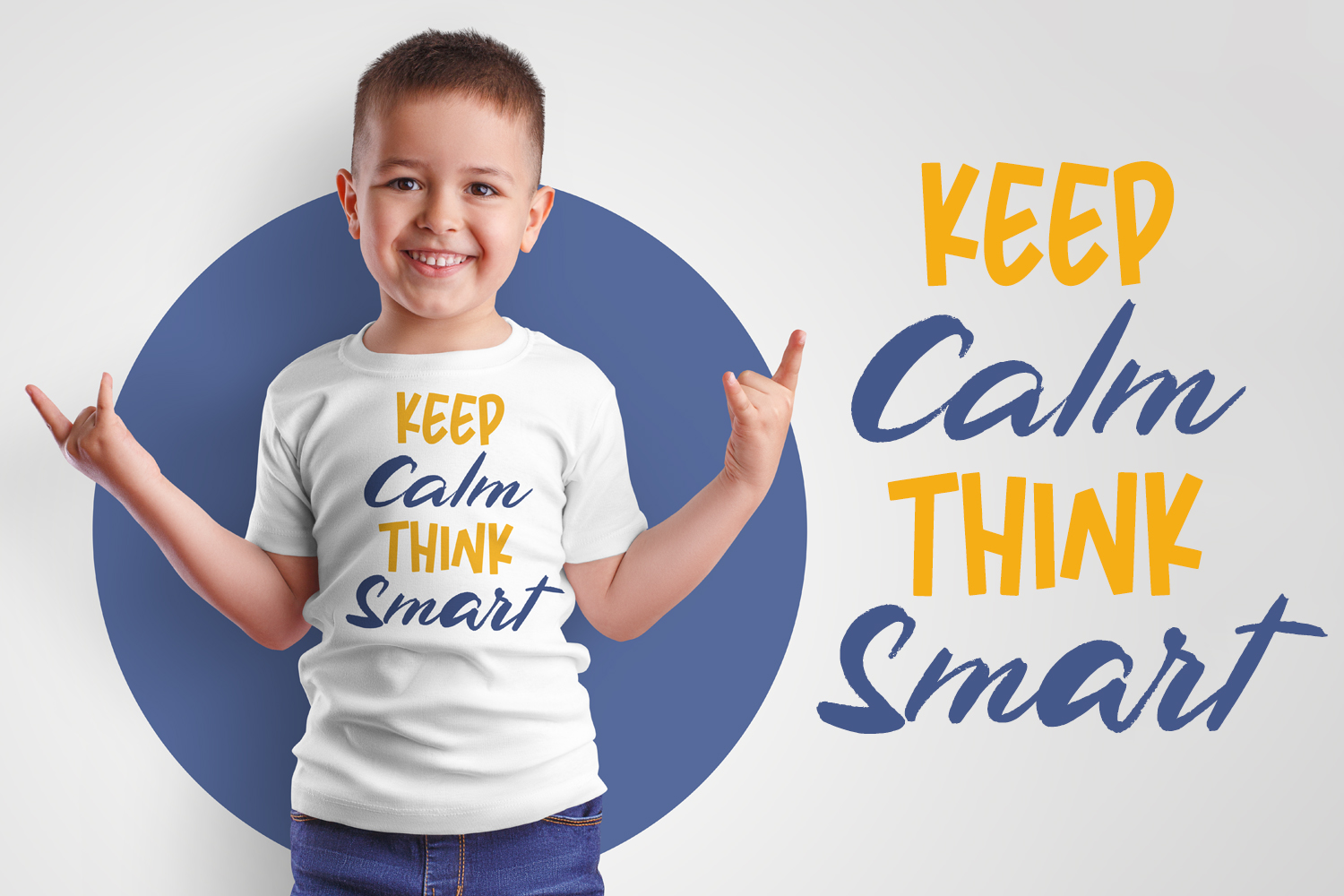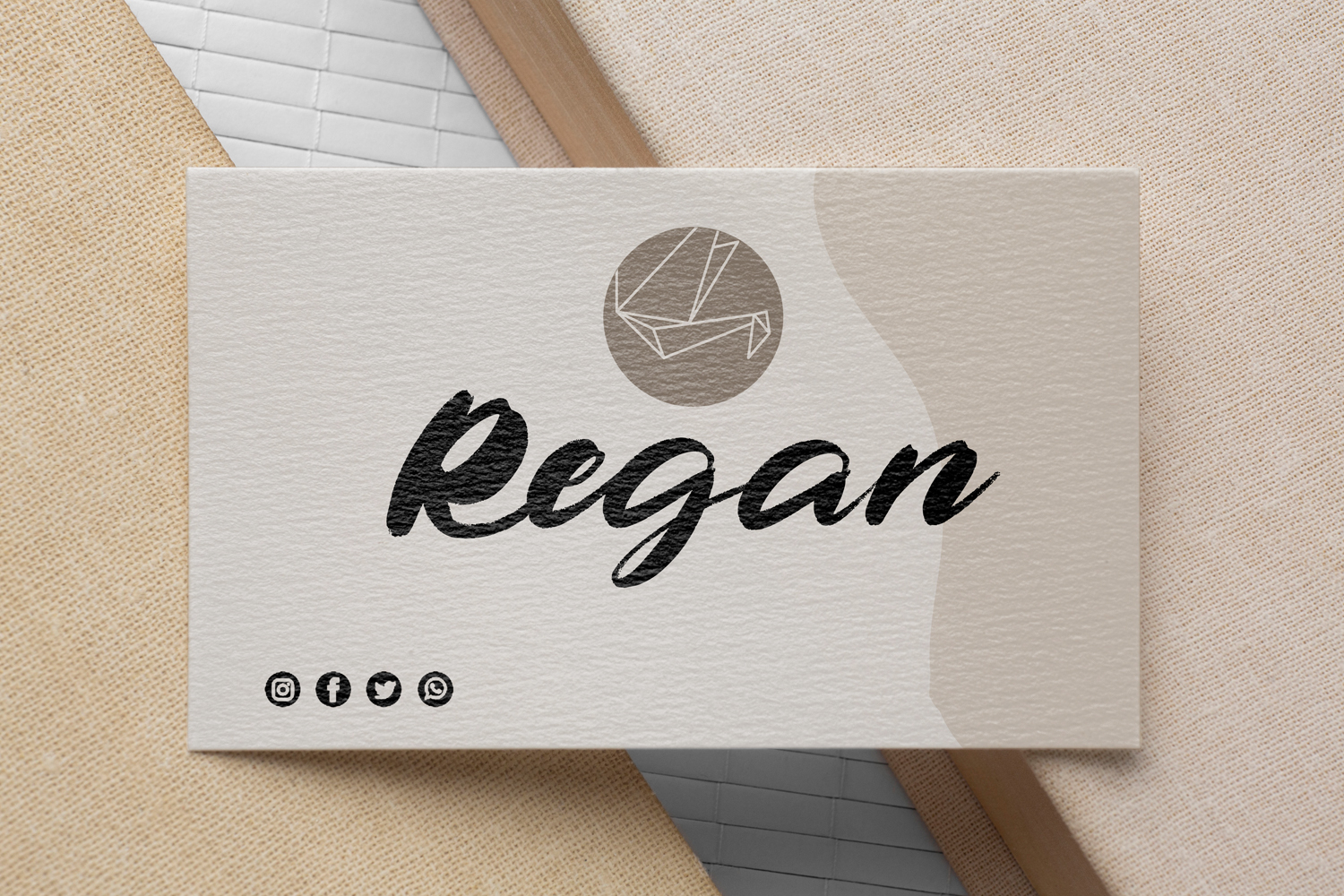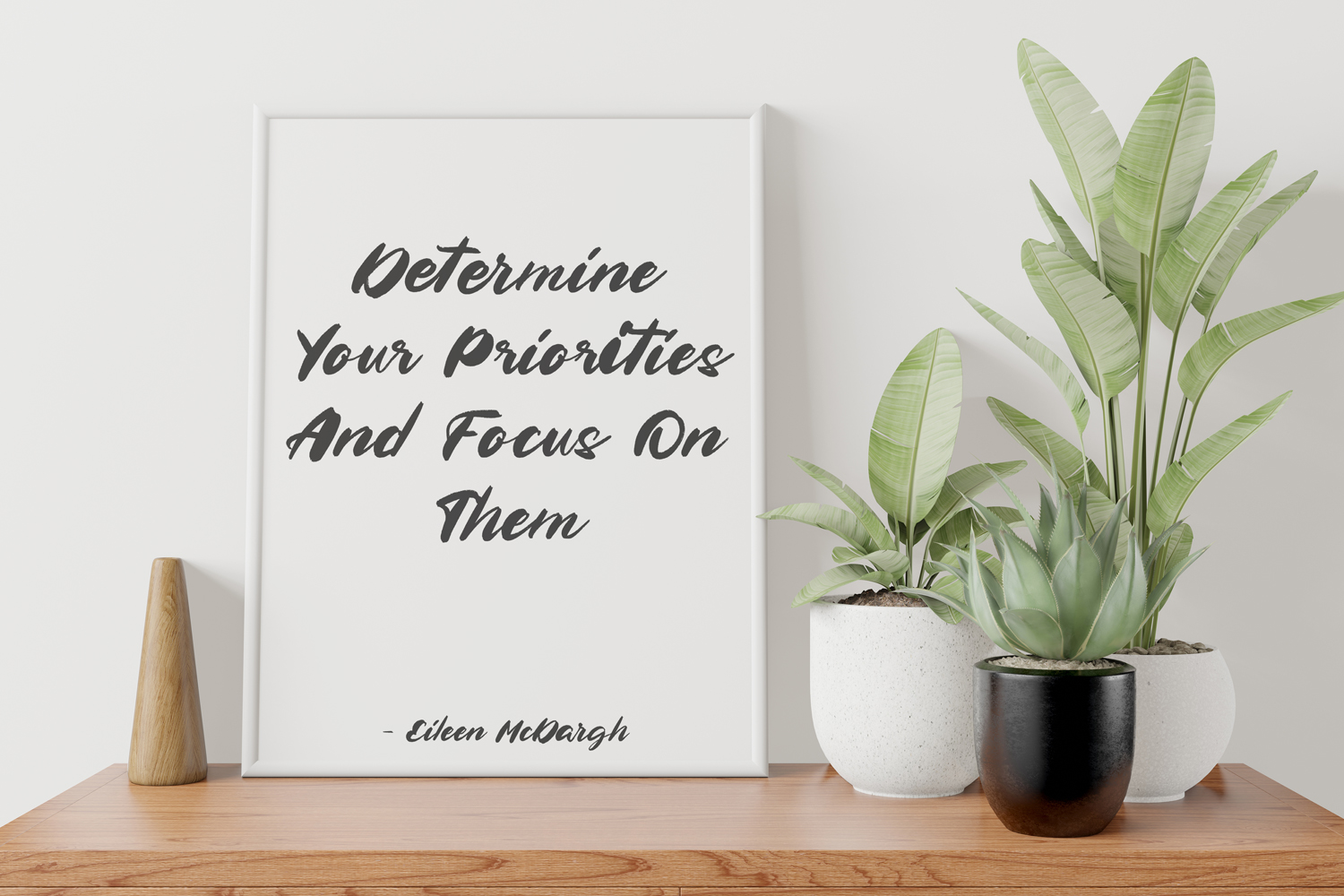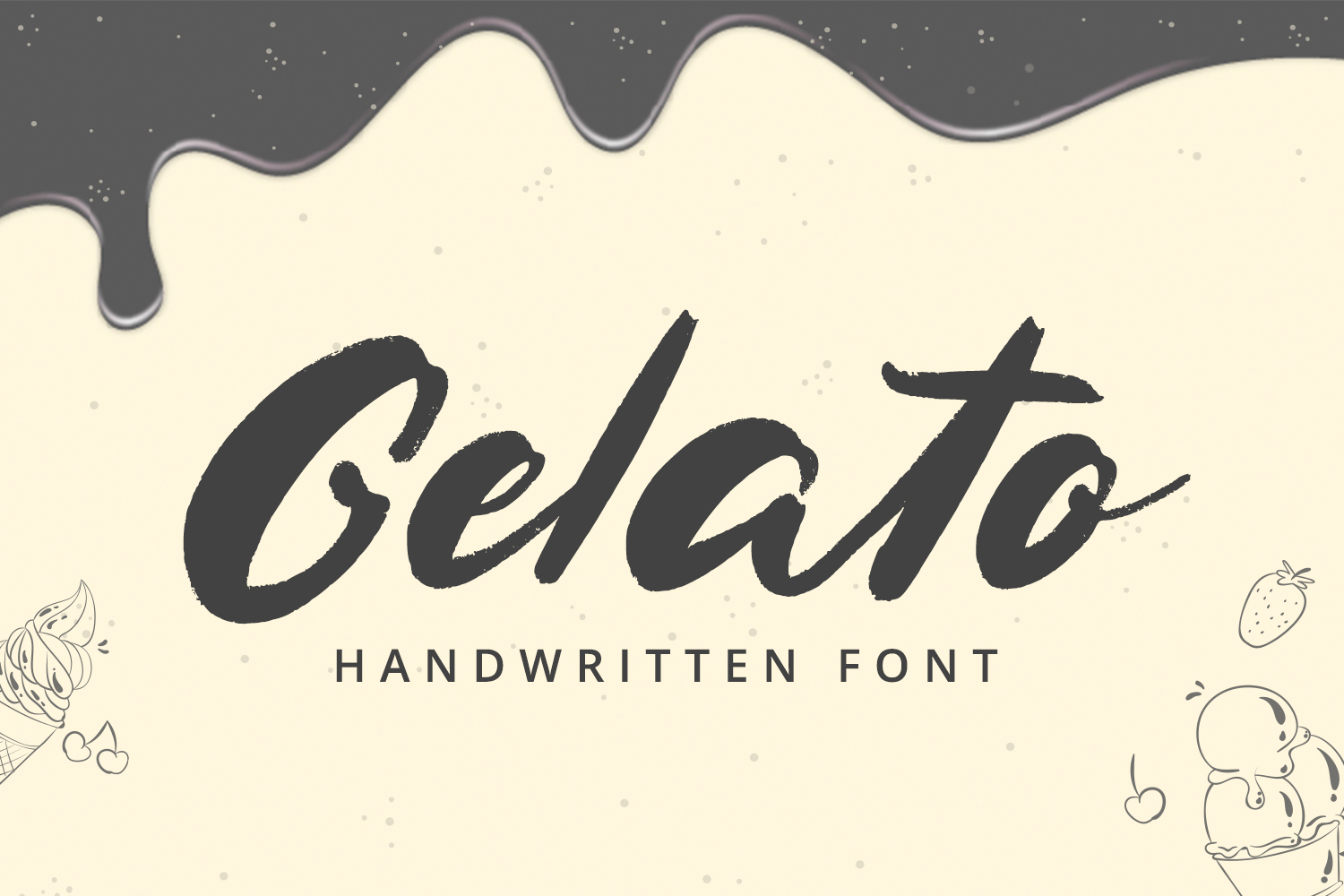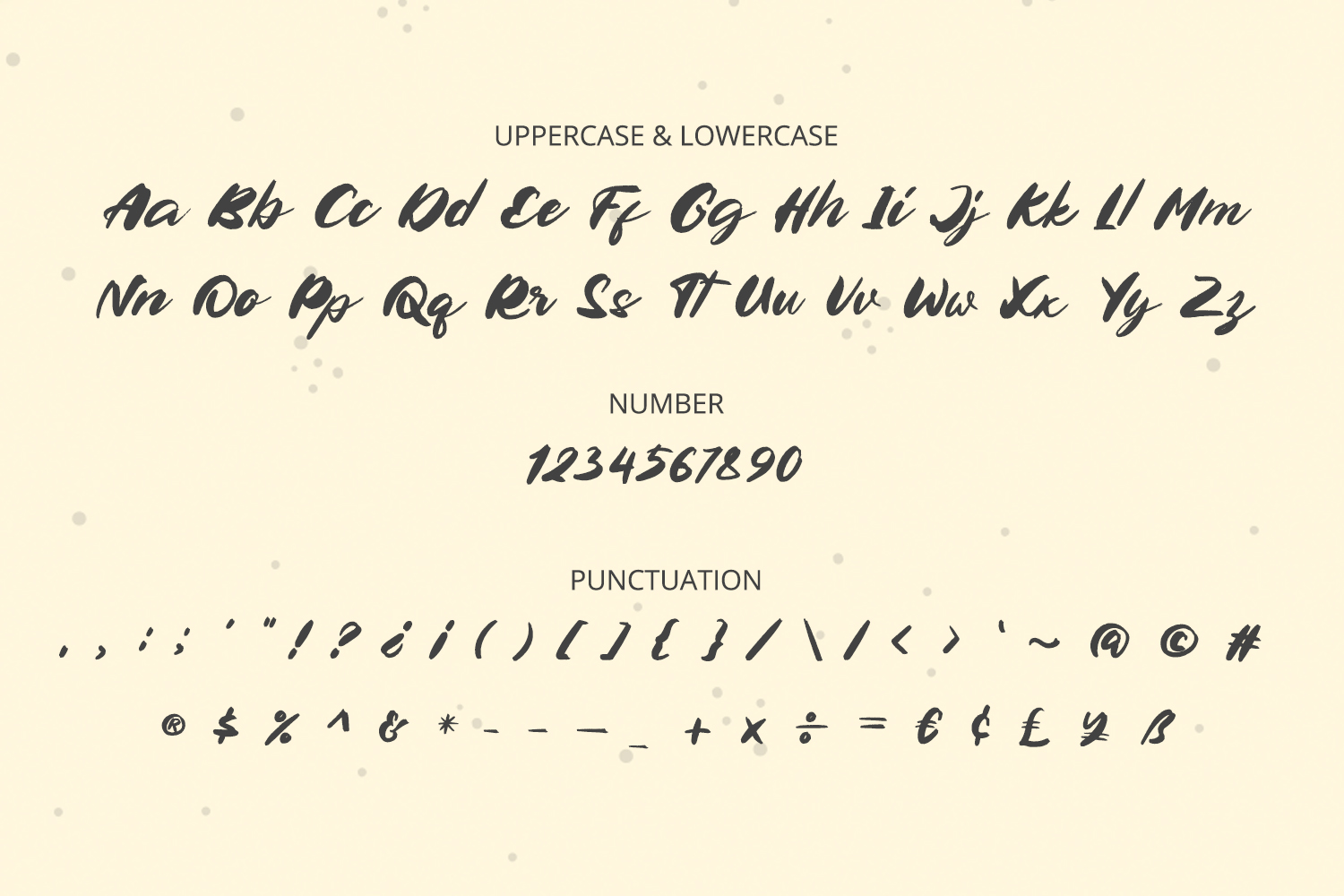
Gelato Script Font
It\’s a stunning handwwritten font with authentic and casual feels. It will be perfectly used for Branding, Logo Design, Lettering, Logotype, Clothing, Poster, magazine, packaging, posters, shopping bags, t-shirts, book covers, photography, special events and other design project.